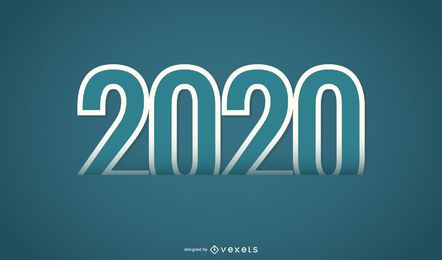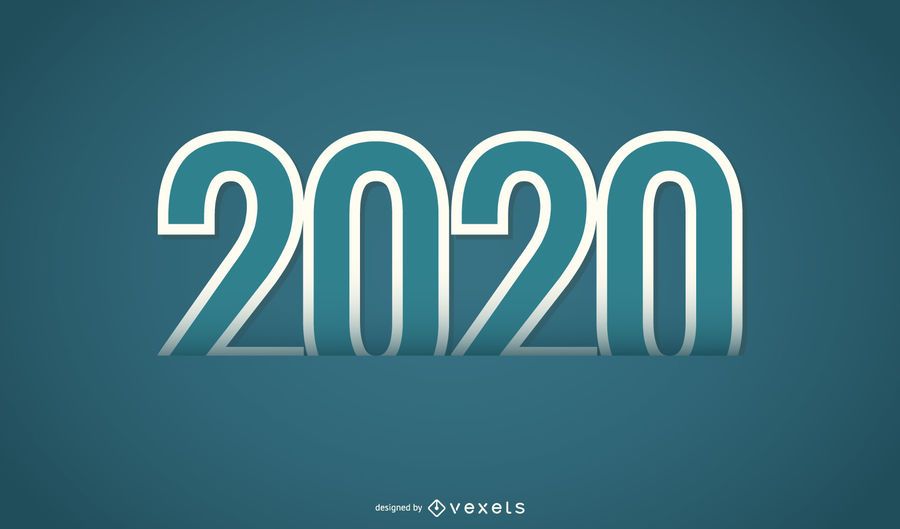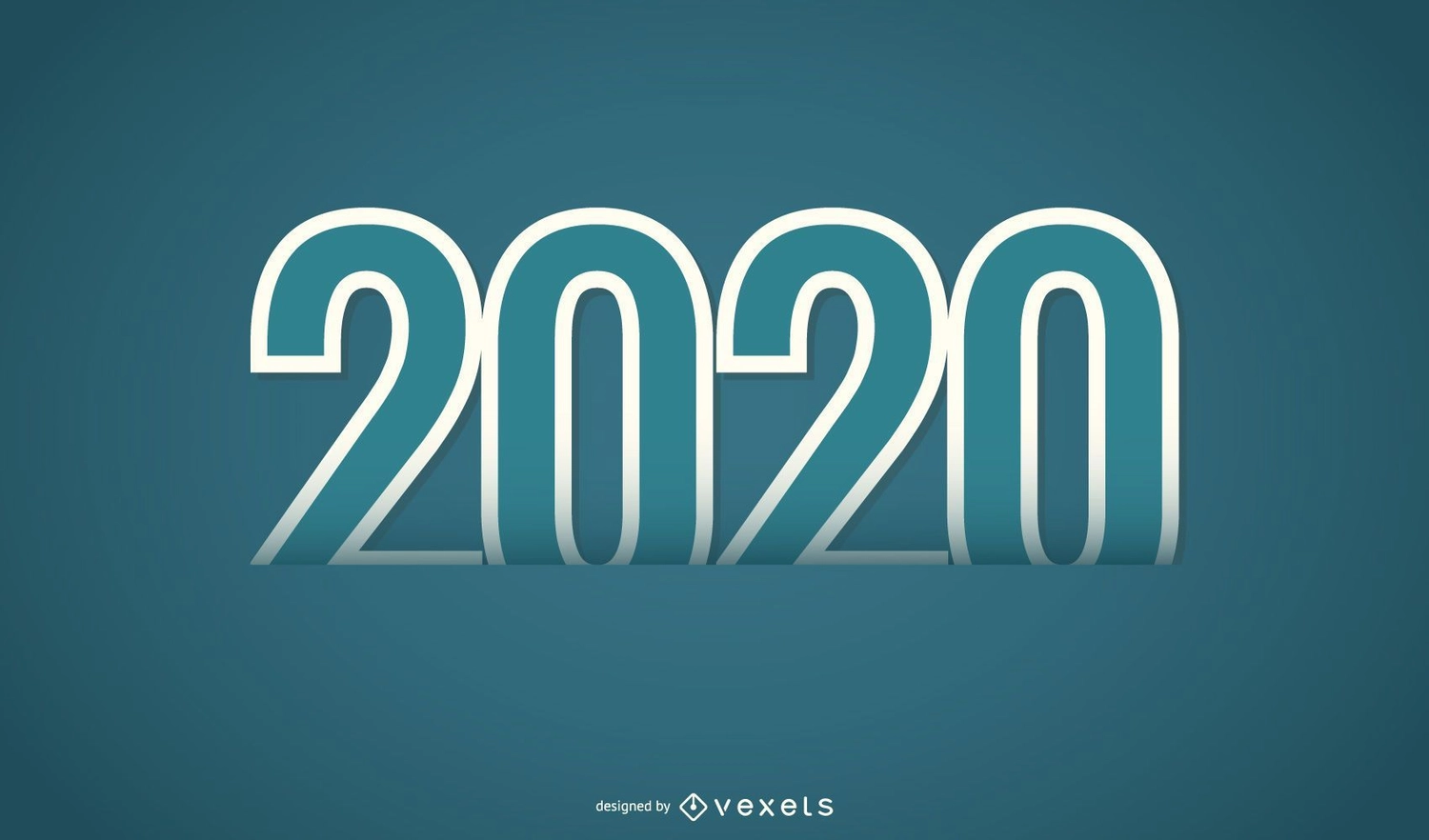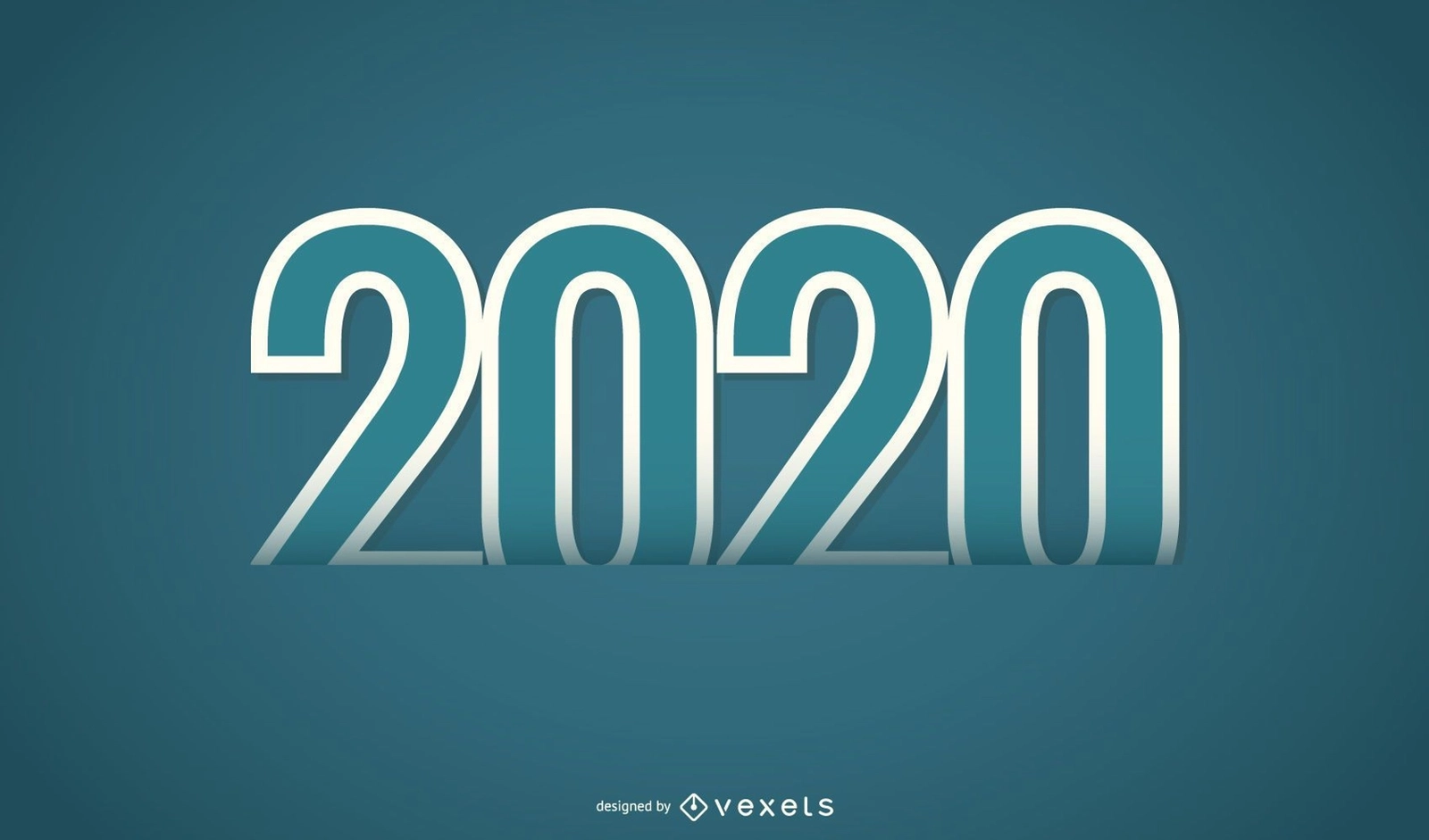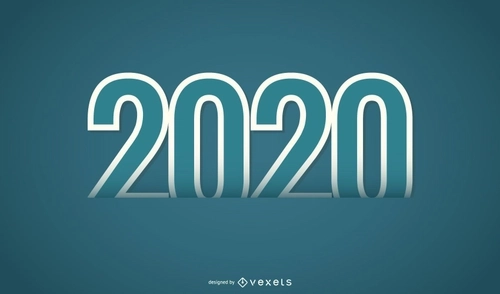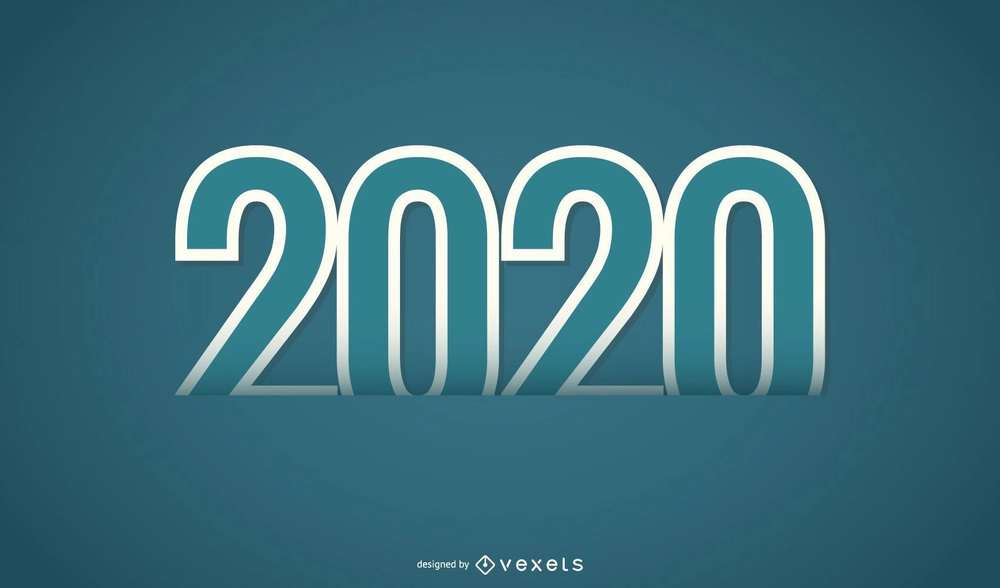
2020 double font lettering
Beautiful looking block lettered new year 2015 typography sticker visual shade style design labeled up apart in the bottom edge over darkish green background with copy space for custom text. Enjoy!!